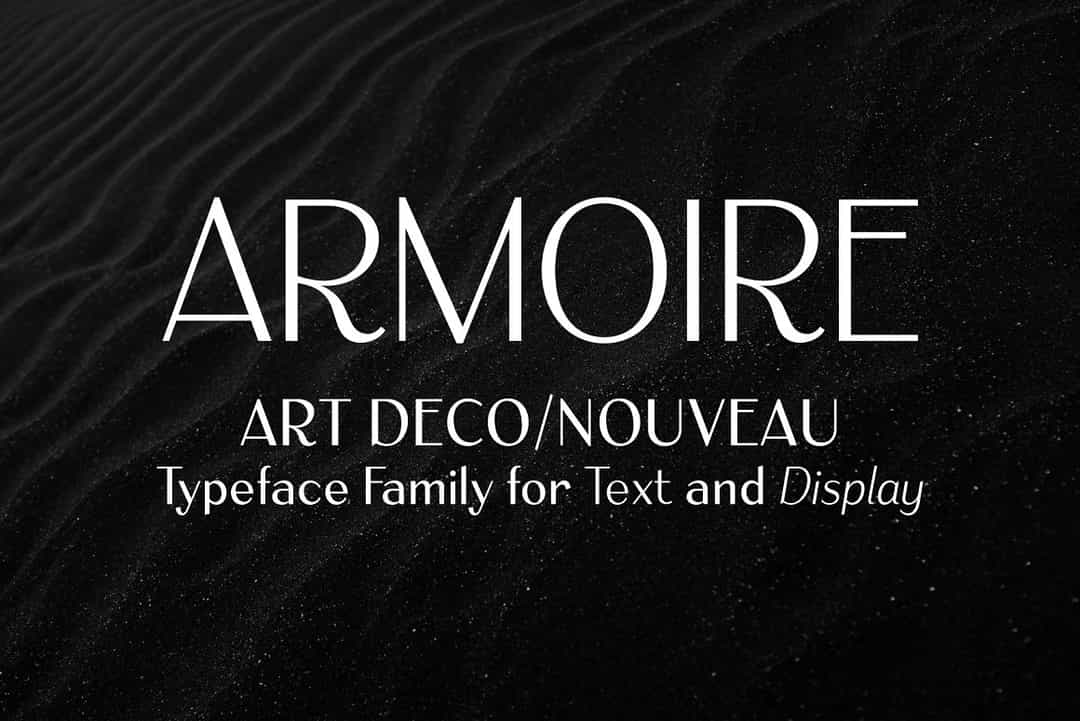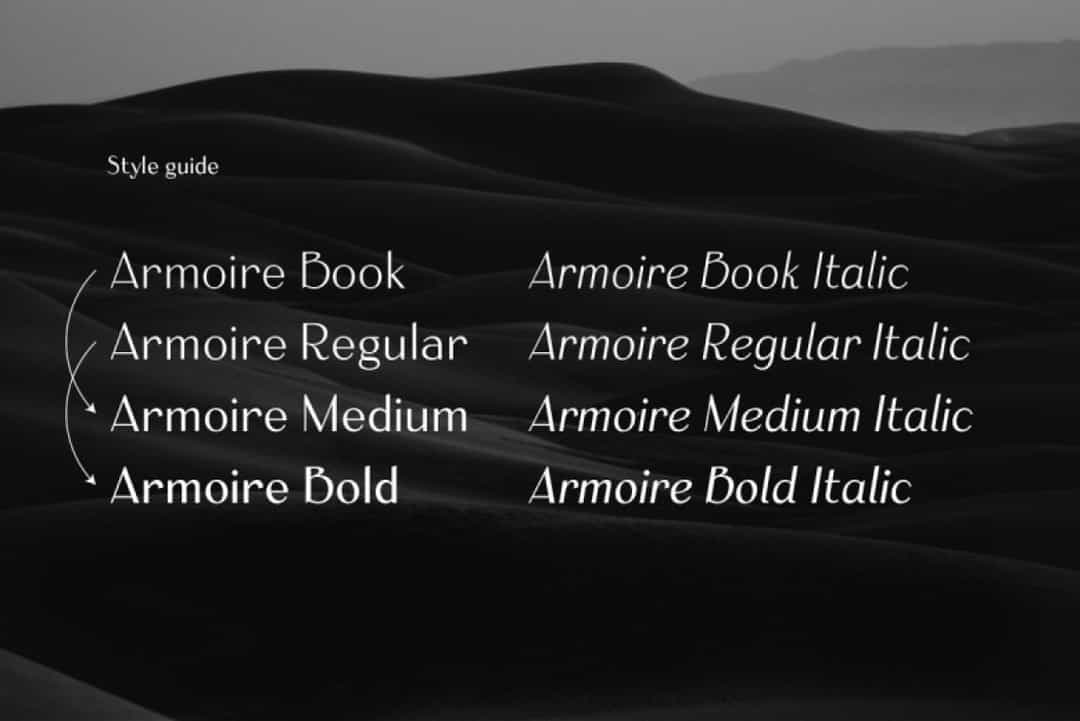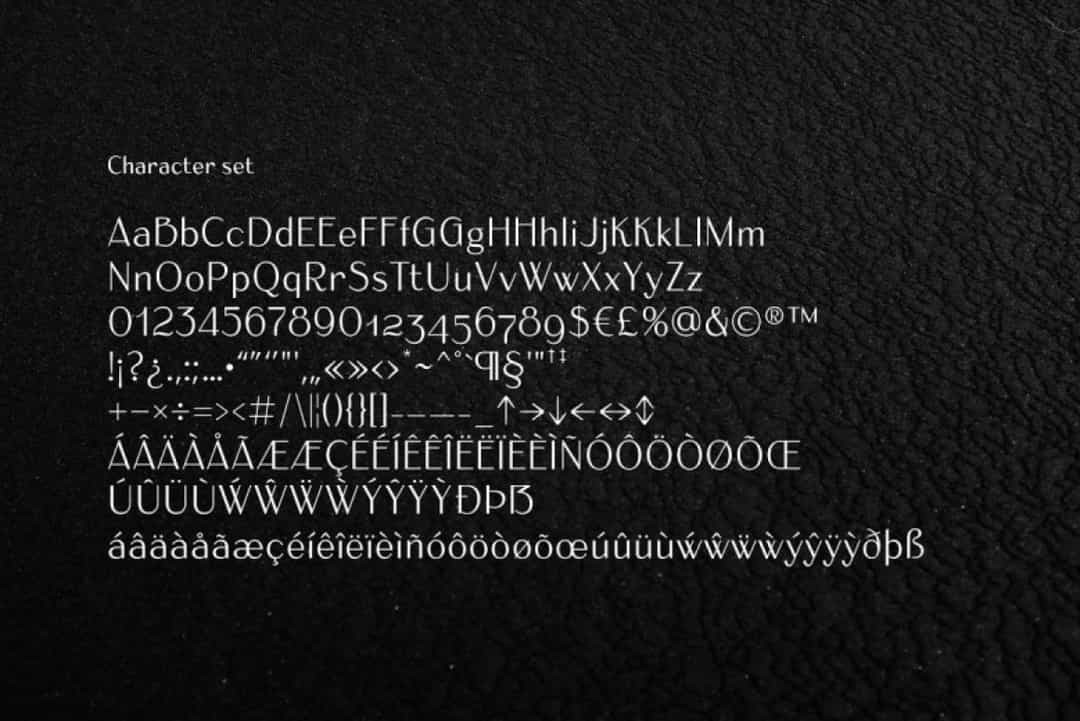
Armoire is an eye-catching sans-serif typeface that combines the sophisticated rationality of Art Deco with ornamental art from Art Nouveau. Created for display and text use, Armoire comes equipped with subtle variations in weights as well as italics for maximum impact, along with uppercase letters that respond directly to case variations.